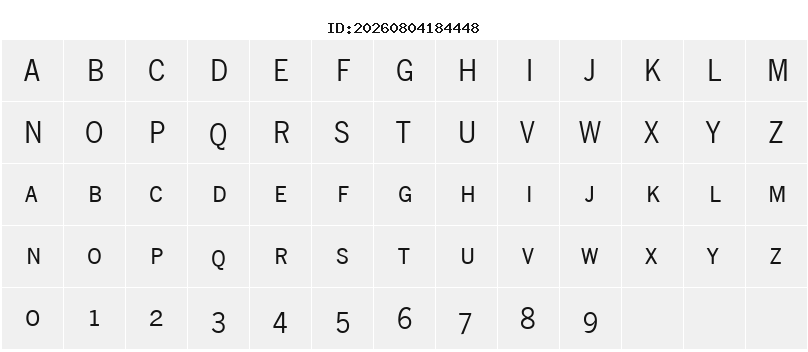
About NewsGothicSmc.ttf
NewsGothicSmc.ttf is a modern, elegant sans-serif font designed for ultimate readability and visual harmony. Perfect for branding, headlines, web design, and print materials.